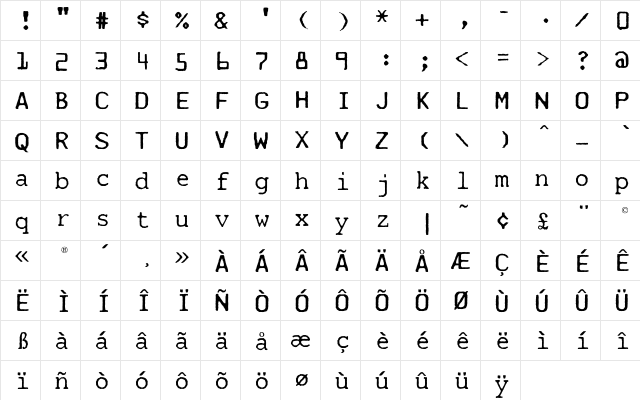
Mainframe-RD Two Laser Regular
Design Context for Mainframe-RD Two Laser Typeface
Mainframe-RD Two Laser takes a measured approach to typography — its balanced proportions and neutral character make it a reliable workhorse for both digital and print work.